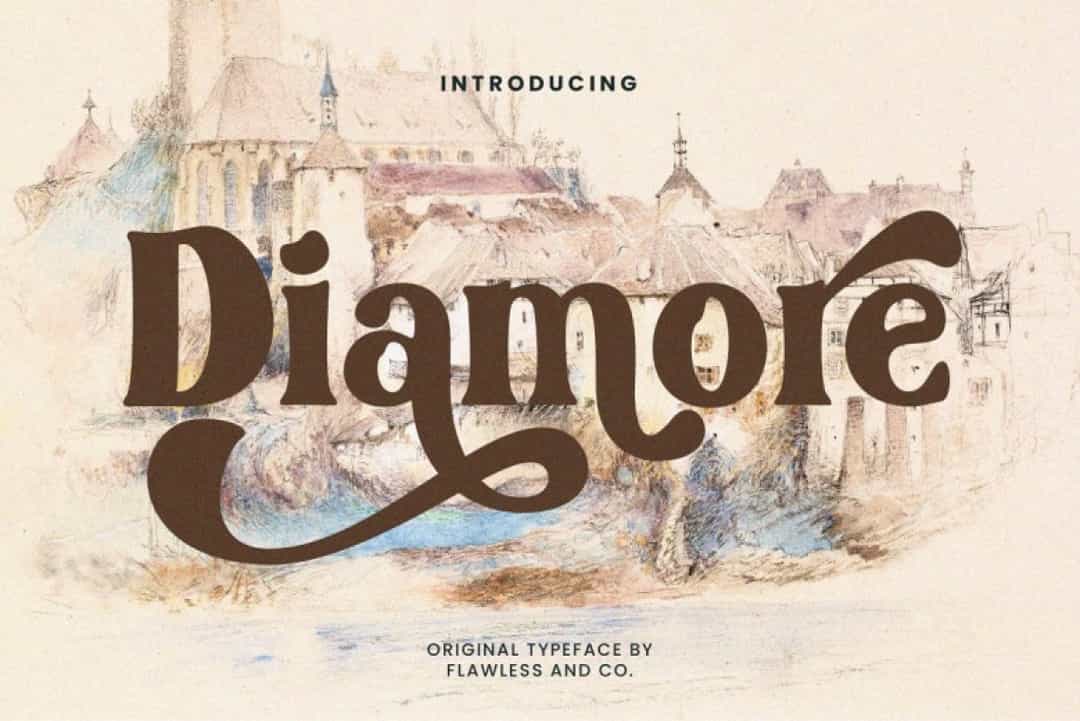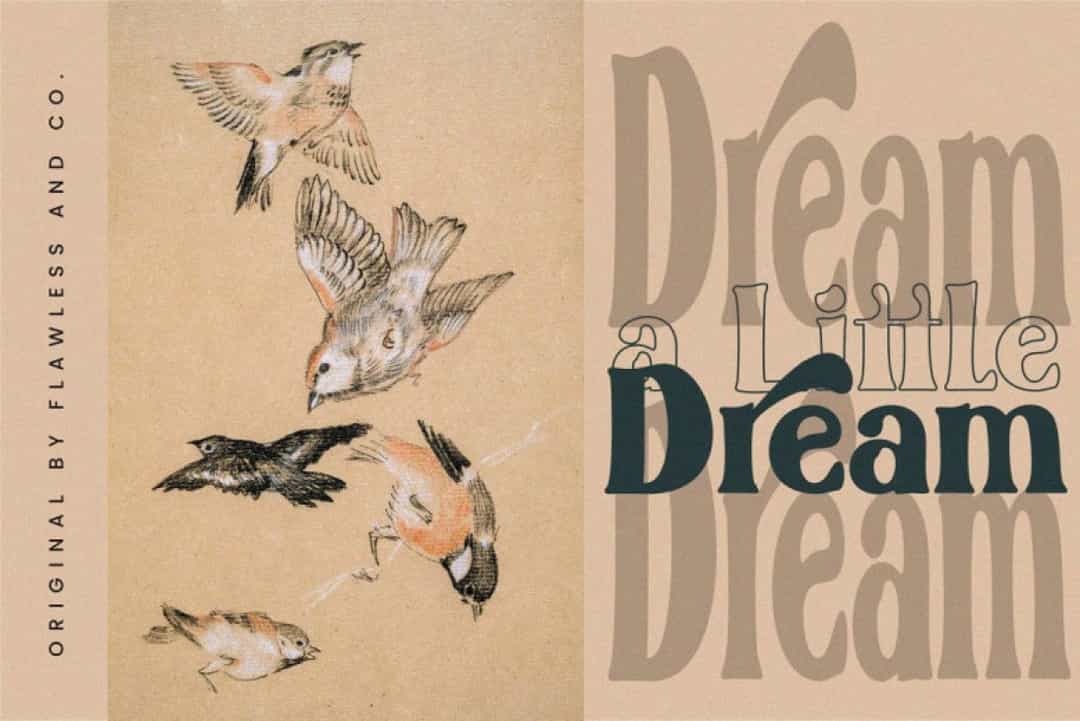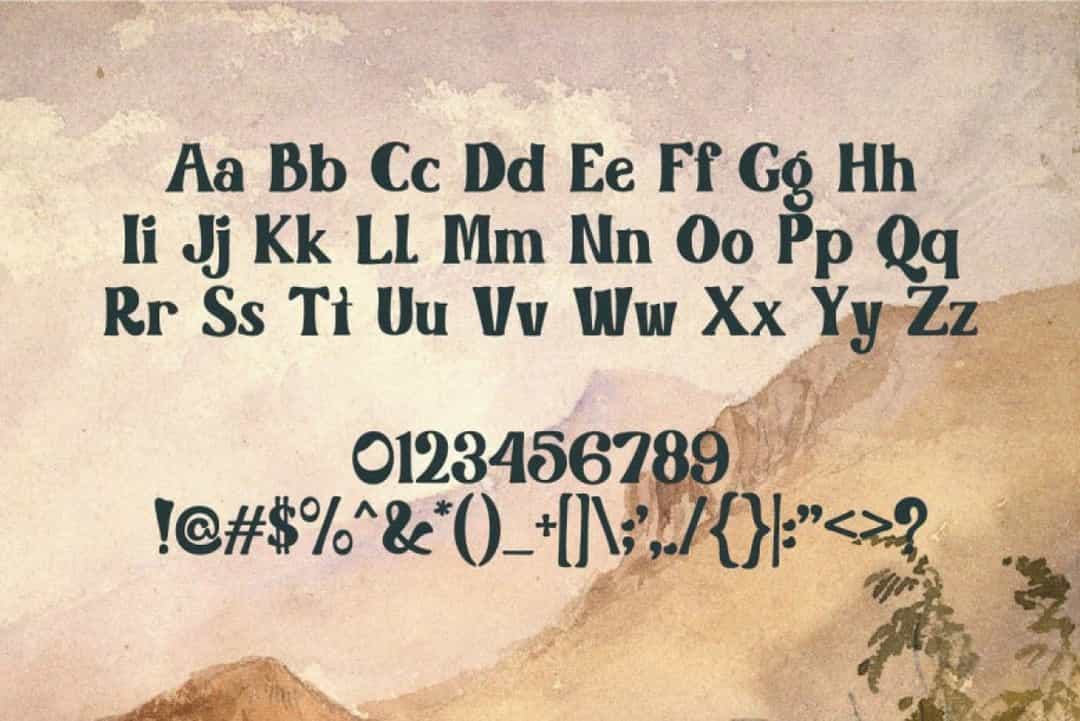
Diamore is an eye-catching vintage serif typeface created using a blend of artistic and geometric accents that makes for stunning aesthetics. Nebula features sharp lines and smooth contours, lending itself to modernity with ease while its legibility ensures your message will come across clearly, while its distinct design creates an eye-catching impression.